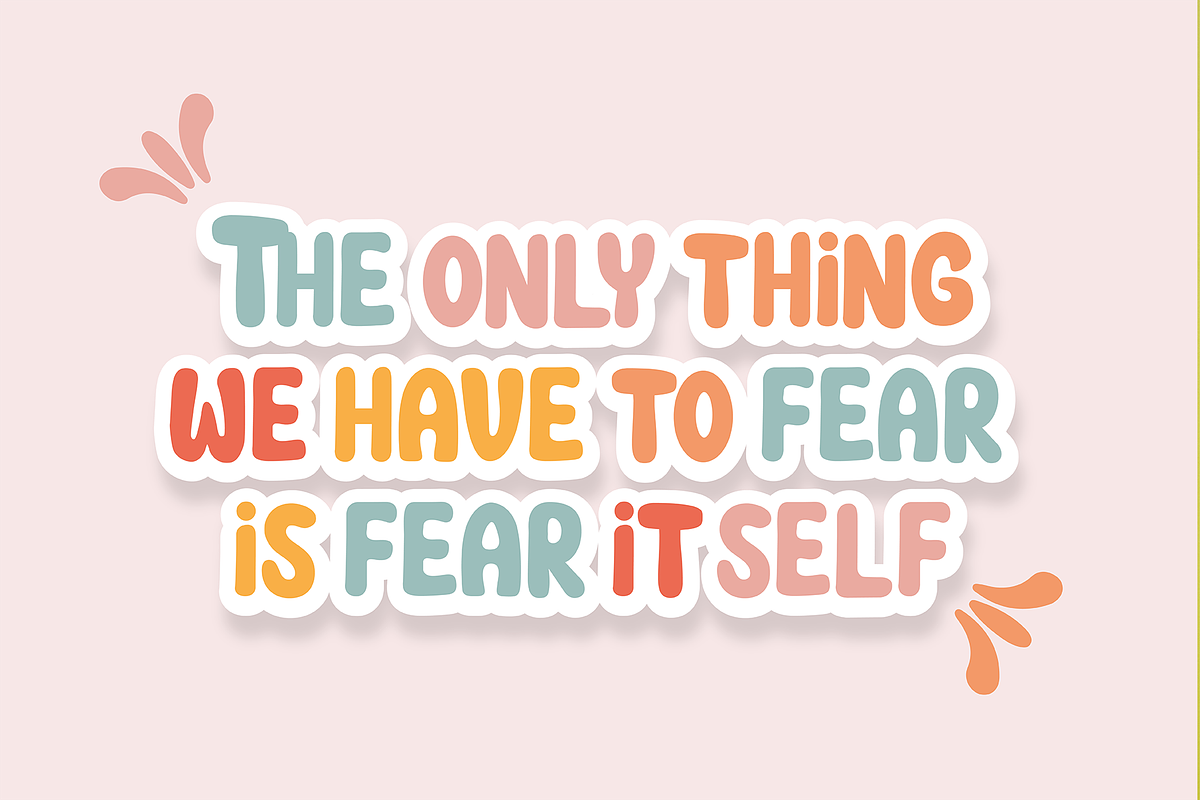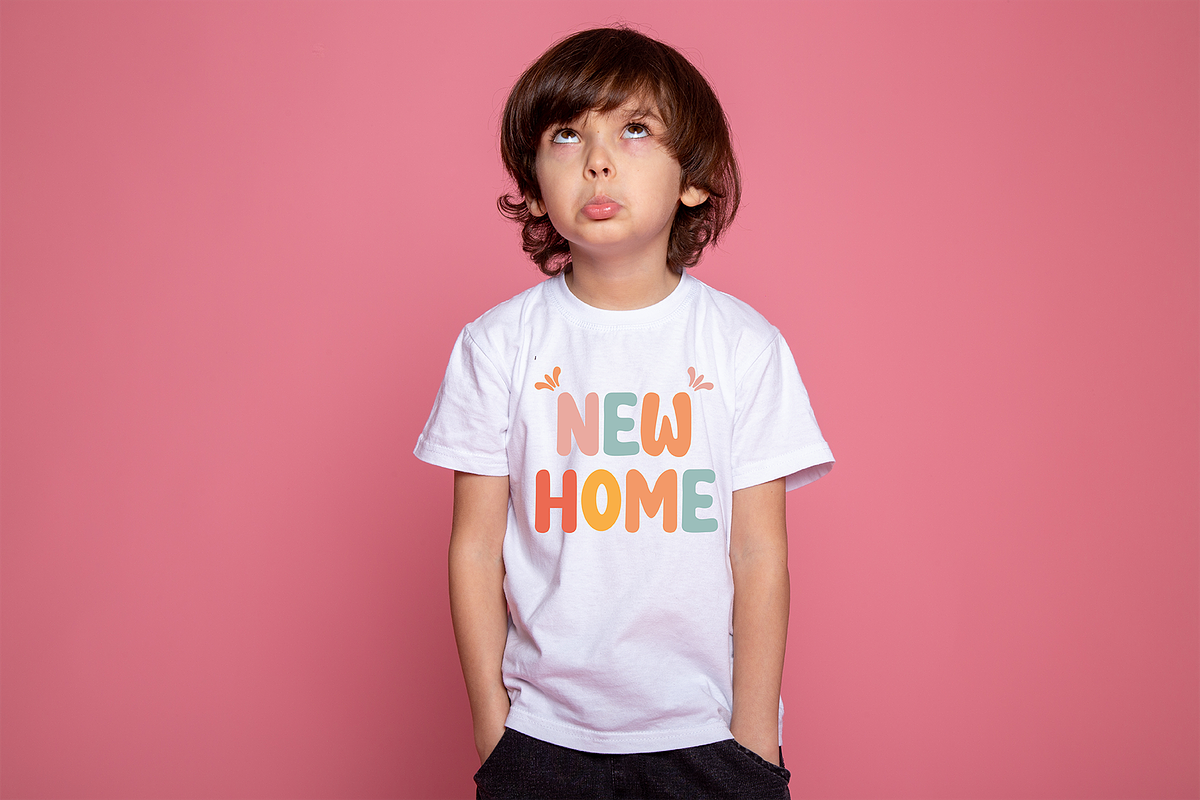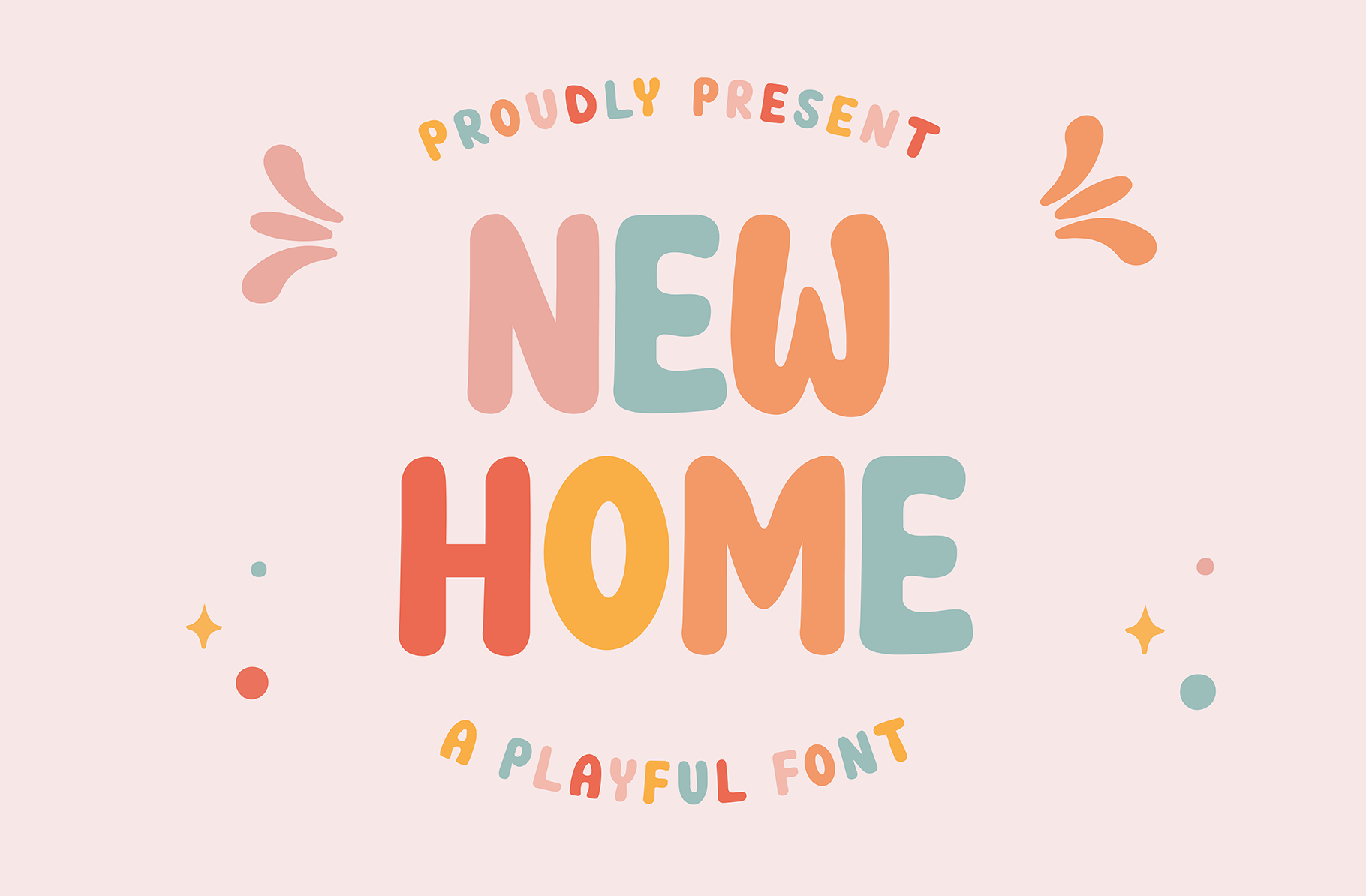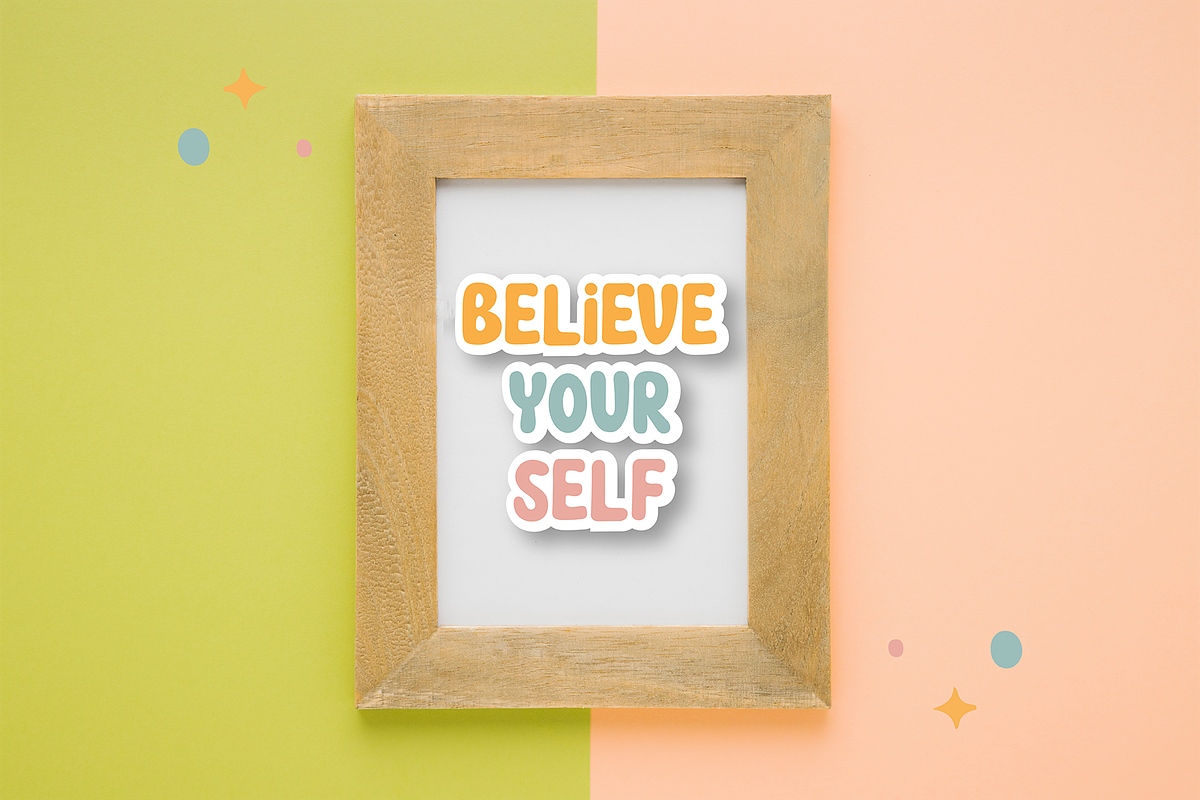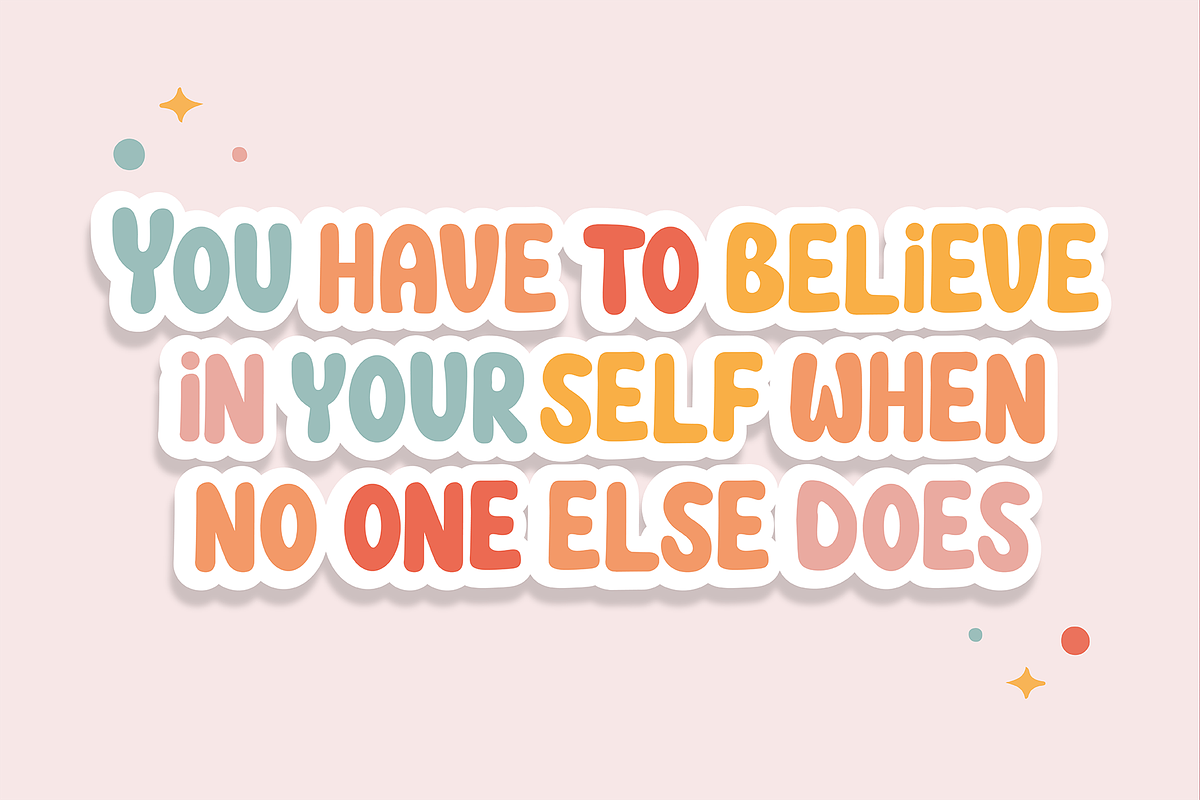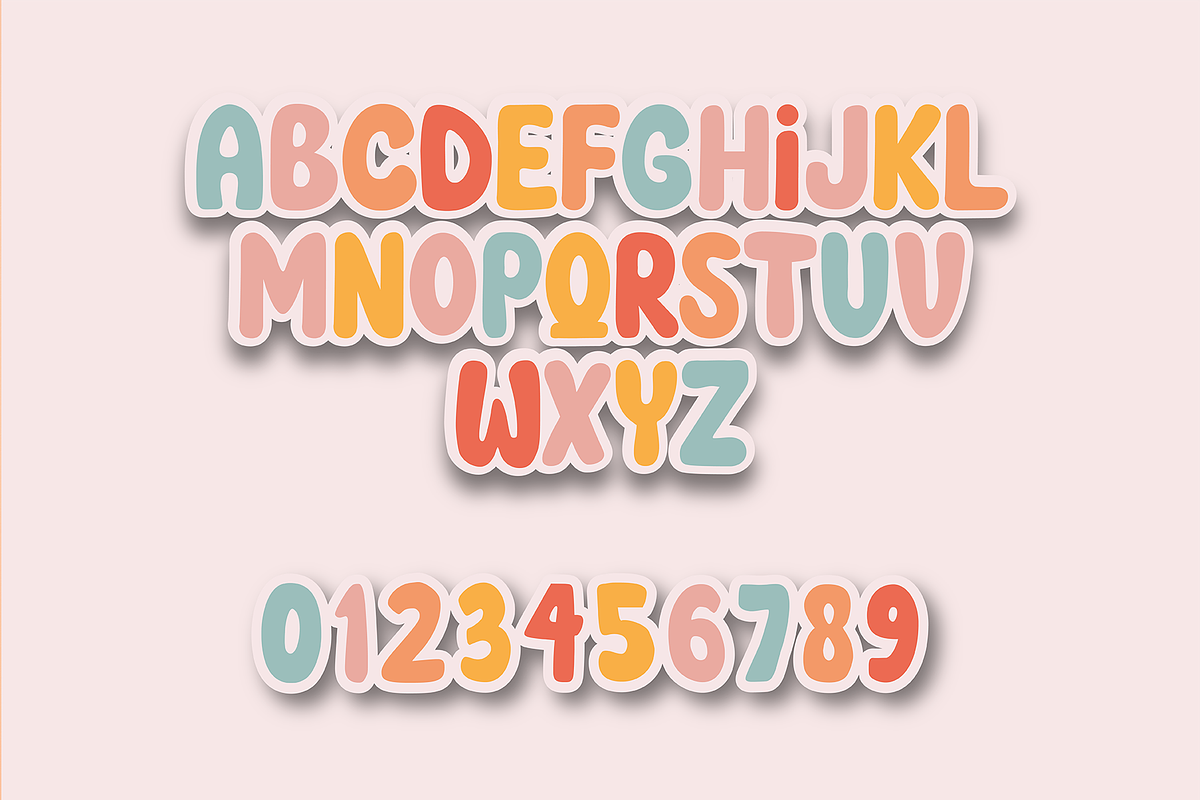
New Home Display Font
New Home is a fun, bold, cheerful and playful display font. Its chubby characters and lighthearted nature make this typeface a must-have in your fonts library